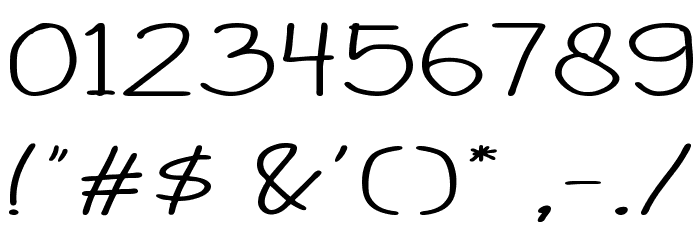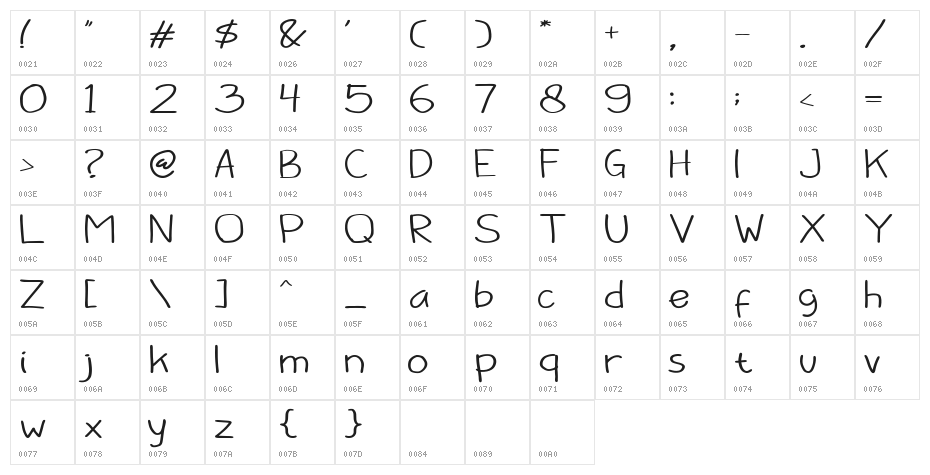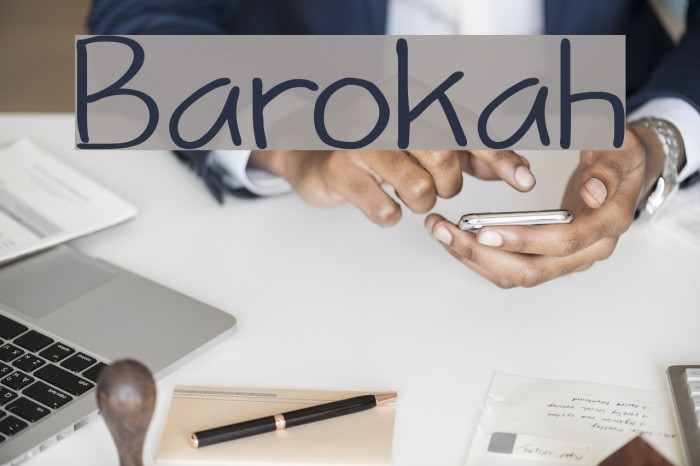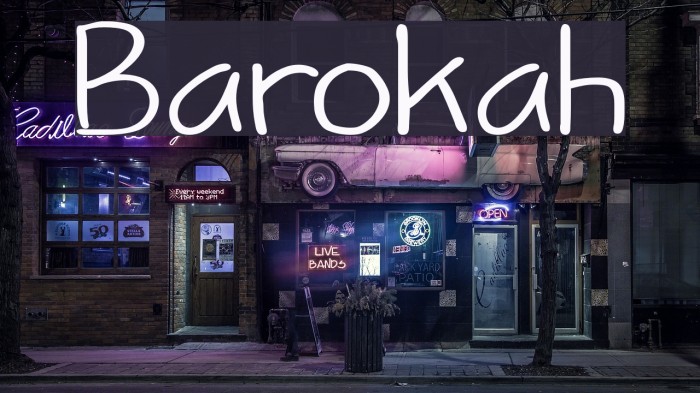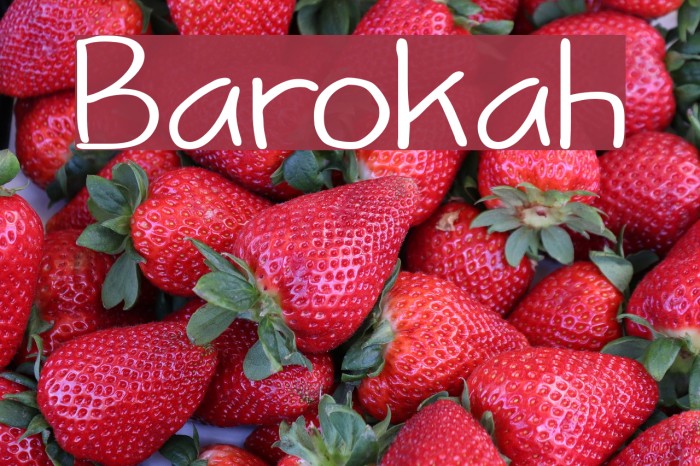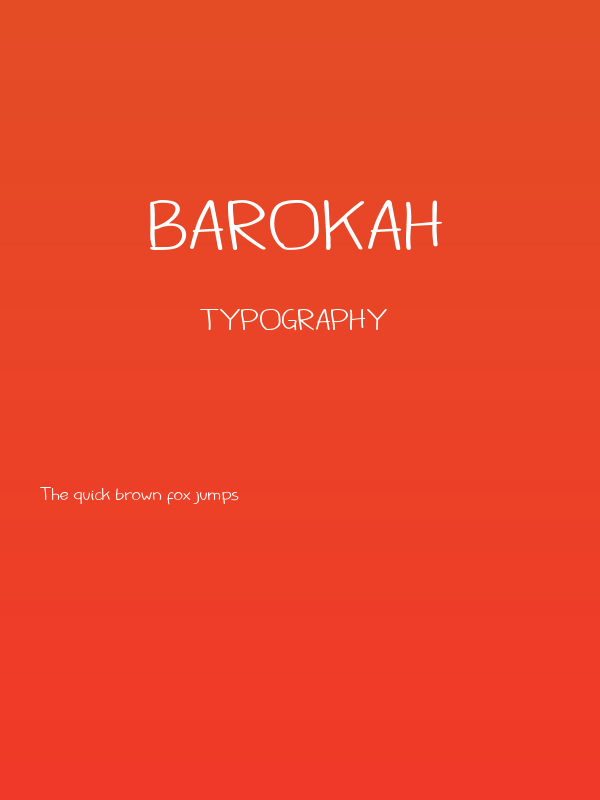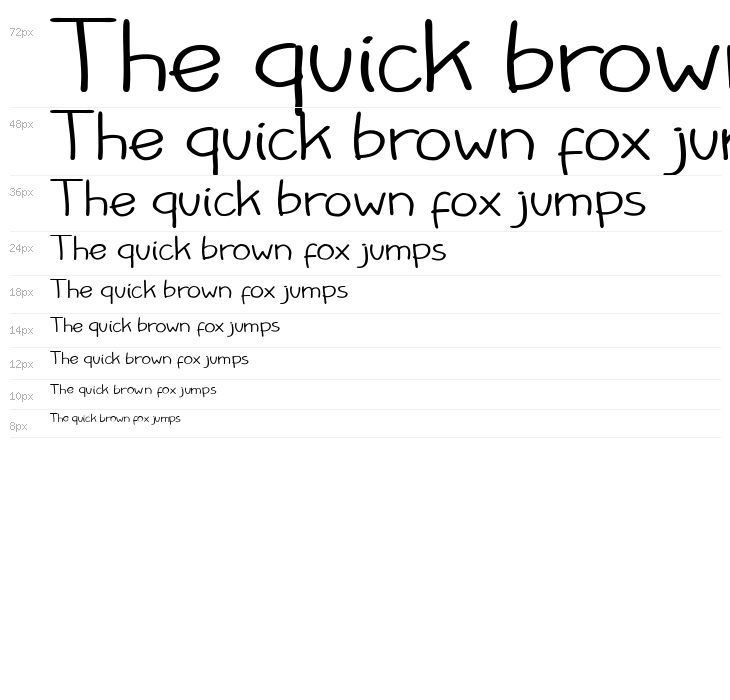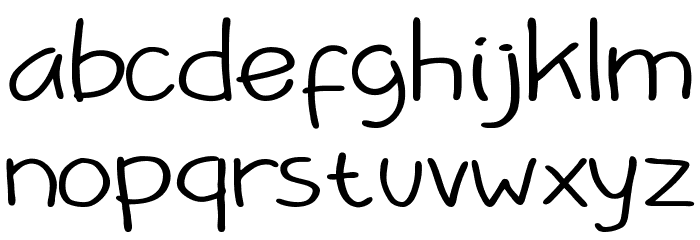
Barokah Font
Barokah Description
This font features a playful, handwritten style with a casual and friendly appearance. The characters are rounded and slightly irregular, giving it a personal touch that mimics natural handwriting. The uppercase and lowercase letters maintain a consistent flow, with a slight tilt that adds to its informal charm. The numerals and special characters are designed to match the overall aesthetic, ensuring a cohesive look across all text. This font is versatile, suitable for projects that require a touch of personality and warmth.
| Use Case | Headlines, Informal text, Personal projects |
| Proposed Projects | Ideal for greeting cards, children's books, personal blogs, and informal branding. |